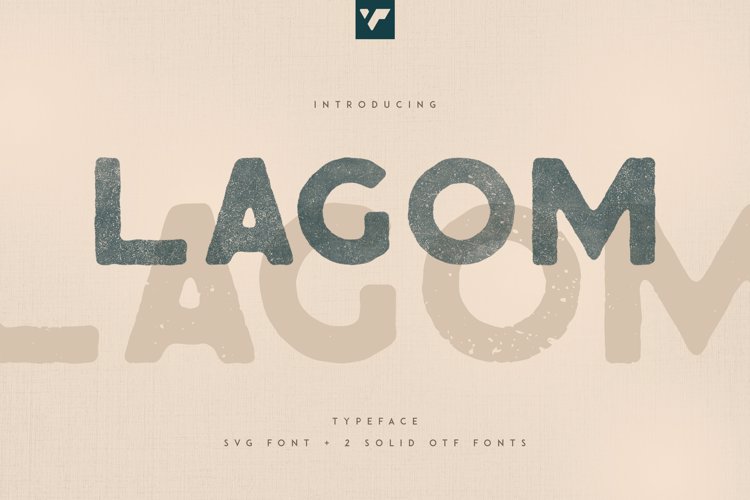
LAGOM Font
Lagom Display Font
Lagom is perfect for branding projects, home-ware designs, product packaging, magazine headers – or simply as a stylish text overlay to any background image.